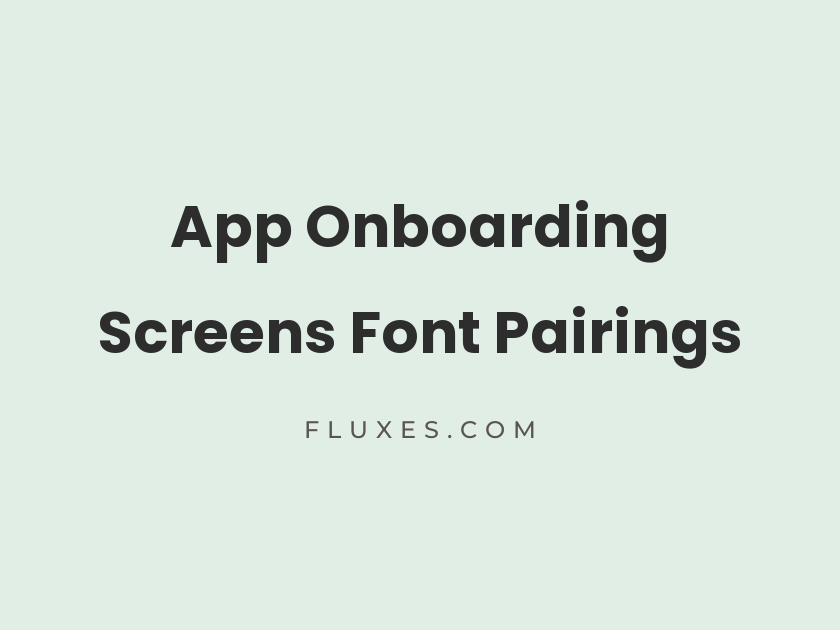
36 Best Font Pairings for App Onboarding Screens
Onboarding screens live or die in seconds, so the type has to communicate instantly: a confident headline that sets the tone, and body copy that explains value without slowing anyone down. The best font pairings for app onboarding screens balance a distinctive display face with a highly legible text face, matching x-heights and rhythm so the two never fight for attention. Below are combinations built specifically for that job, from geometric and rounded sans pairs to a few serif options for onboarding flows that want a more editorial feel.
1. Poppins + Inter
Poppins brings geometric warmth and rounded terminals that read as friendly rather than corporate, while Inter’s neutral, screen-optimized letterforms keep longer explanatory copy crisp at small sizes. This is a dependable starting point for consumer apps, fitness trackers, and anything aiming for approachable but modern.
2. Outfit + Karla
Outfit’s clean geometric structure gives headlines a confident, minimal edge, and Karla’s slightly quirky but highly readable lowercase keeps the body text feeling human. The pair suits productivity and utility apps that want simplicity without feeling cold.
3. Sora + Work Sans
Sora has a slightly technical, rounded geometry that works well at large display sizes, and Work Sans shares enough of that structural DNA to feel like a natural continuation rather than a contrast. Together they’re a strong choice for tech and SaaS mobile onboarding.
4. Manrope + Source Sans 3
Manrope’s tight spacing and modern proportions make short onboarding headlines feel efficient, while Source Sans 3 is one of the most road-tested body faces for interface text, staying legible at the small sizes onboarding copy often demands.
5. Plus Jakarta Sans + Nunito Sans
Plus Jakarta Sans has just enough personality in its curves to stand out as a headline face without tipping into novelty, and Nunito Sans matches its rounded warmth at body size. It’s a comfortable fit for wellness, habit-tracking, and lifestyle apps.
6. Space Grotesk + IBM Plex Sans
Space Grotesk’s slightly mechanical, engineered feel signals a data-driven product, and IBM Plex Sans, designed for exactly this kind of technical context, carries that mood into the body copy without losing warmth. Expect this combination to feel at home in fintech and analytics onboarding.
7. Urbanist + Mulish
Urbanist is airy and low-contrast, so it needs a body partner that won’t feel heavy beside it; Mulish’s light, even strokes keep the whole screen feeling unified and calm. This pairing suits minimalist productivity apps and note-taking tools.
8. DM Sans + Public Sans
DM Sans reads as trustworthy and understated at large sizes, and Public Sans, built for government and civic interfaces, brings a plain-spoken clarity that suits sensitive onboarding copy about privacy or security. Together they feel official without being stiff.
9. Epilogue + Barlow
Epilogue’s tall x-height and confident weight give headlines real presence on a phone screen, while Barlow’s slightly condensed, industrial character keeps body paragraphs compact. It’s a natural match for finance and budgeting app walkthroughs.
10. Lexend + Noto Sans
Lexend was engineered specifically to improve reading proficiency, which makes it a meaningful choice for onboarding flows about accessibility, and Noto Sans pairs with it cleanly thanks to its own emphasis on broad legibility. This combination fits education apps and accessibility-first products especially well.
11. Syne + Inter
Check legibility at the smallest sizes your body copy will actually use, since many onboarding flows run on compact phone screens with limited space.
Where possible, choose fonts from the same superfamily, like Archivo and Archivo Black or Barlow and Barlow Condensed, for guaranteed harmony without extra design decisions.
Match the mood of the pairing to the product: rounded and soft for wellness or kids’ apps, geometric and sharp for fintech or productivity, serif and editorial for premium or content-driven experiences.